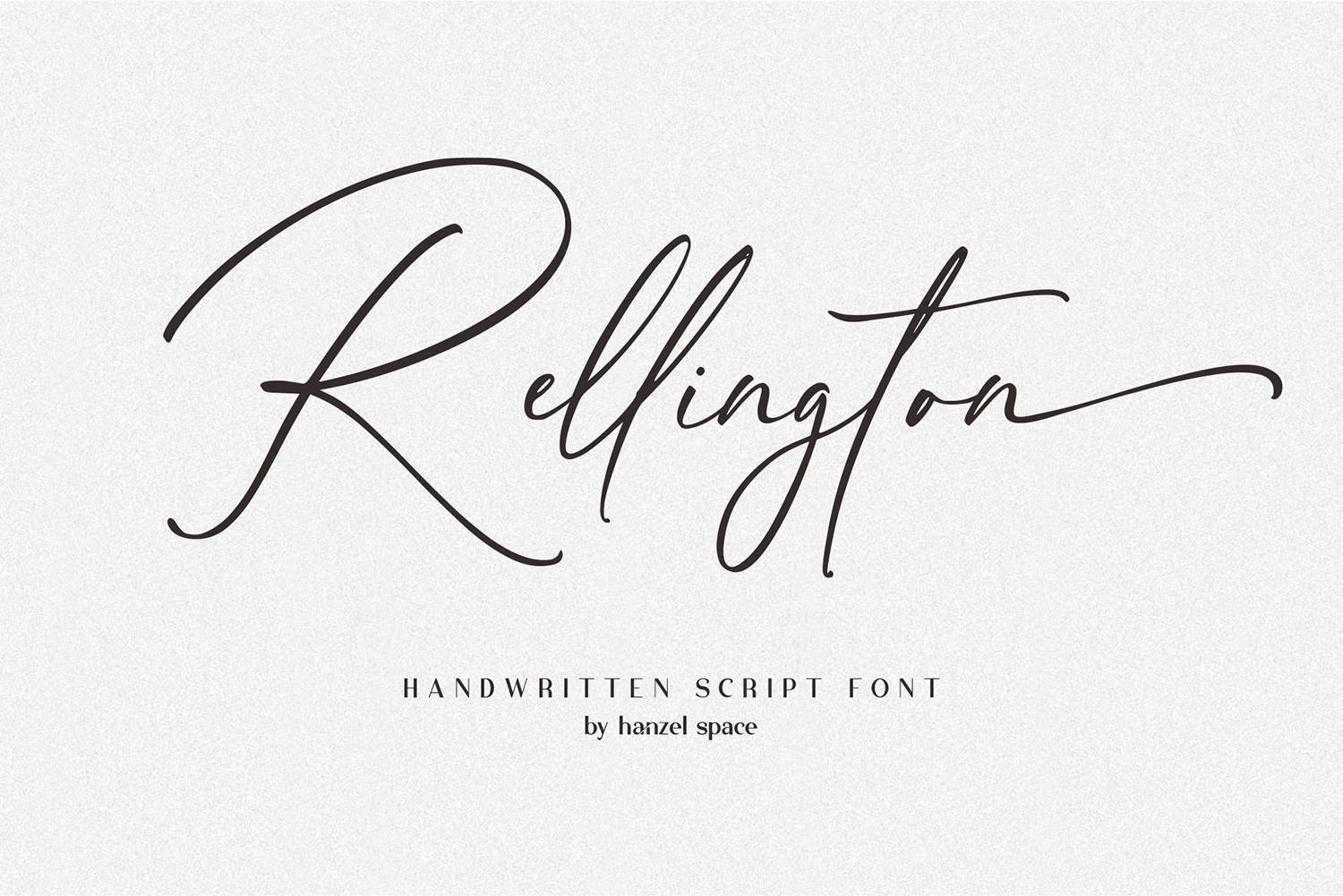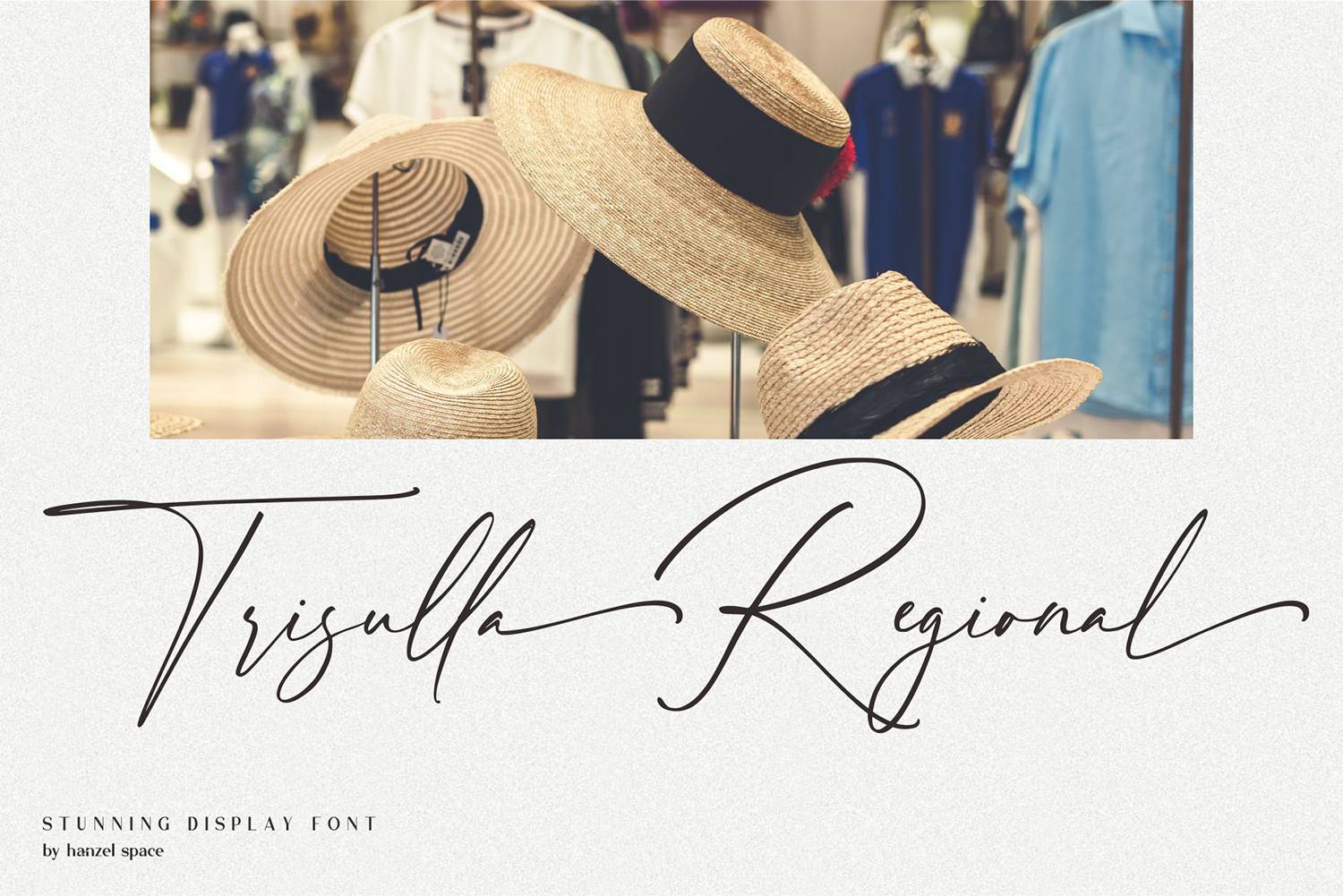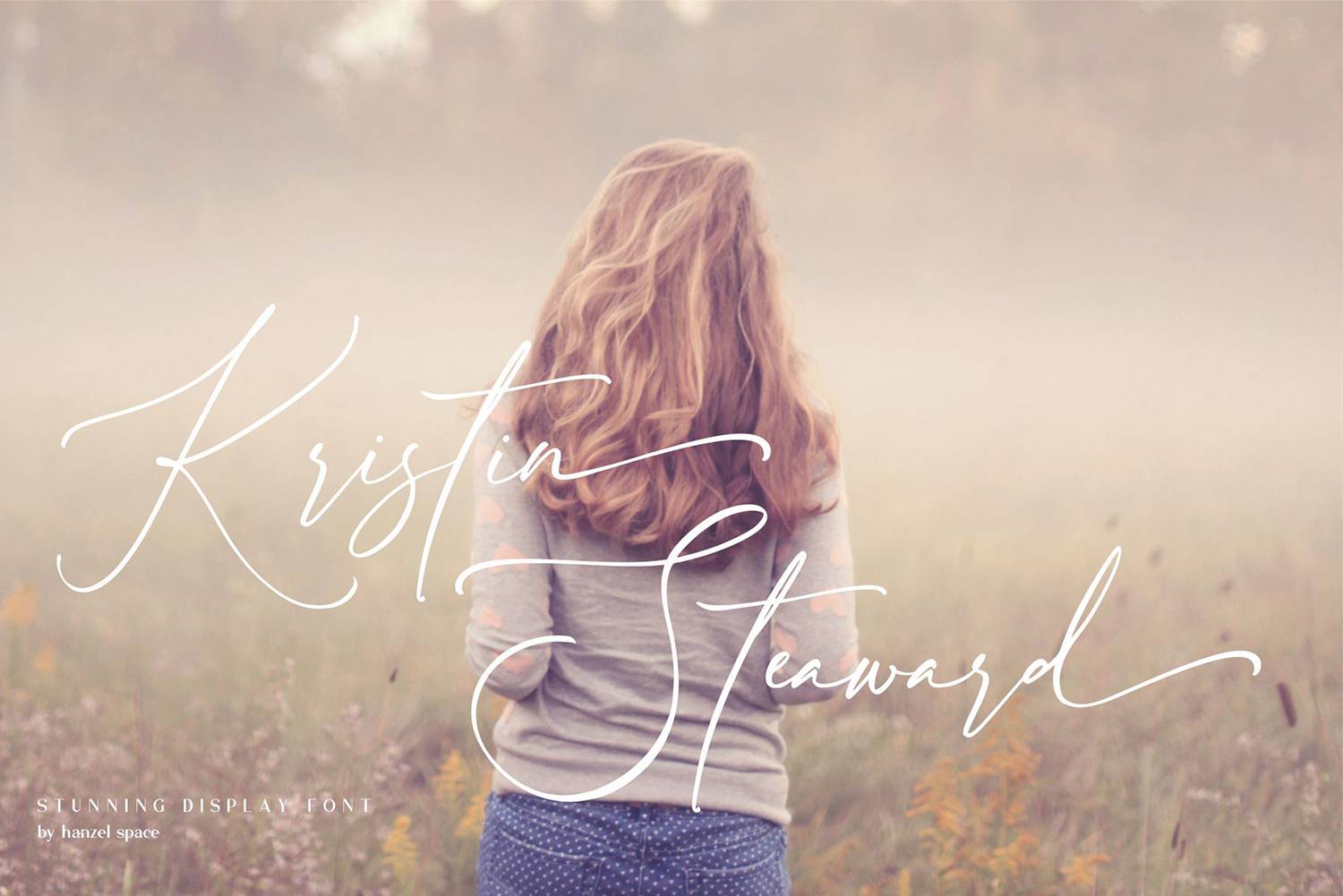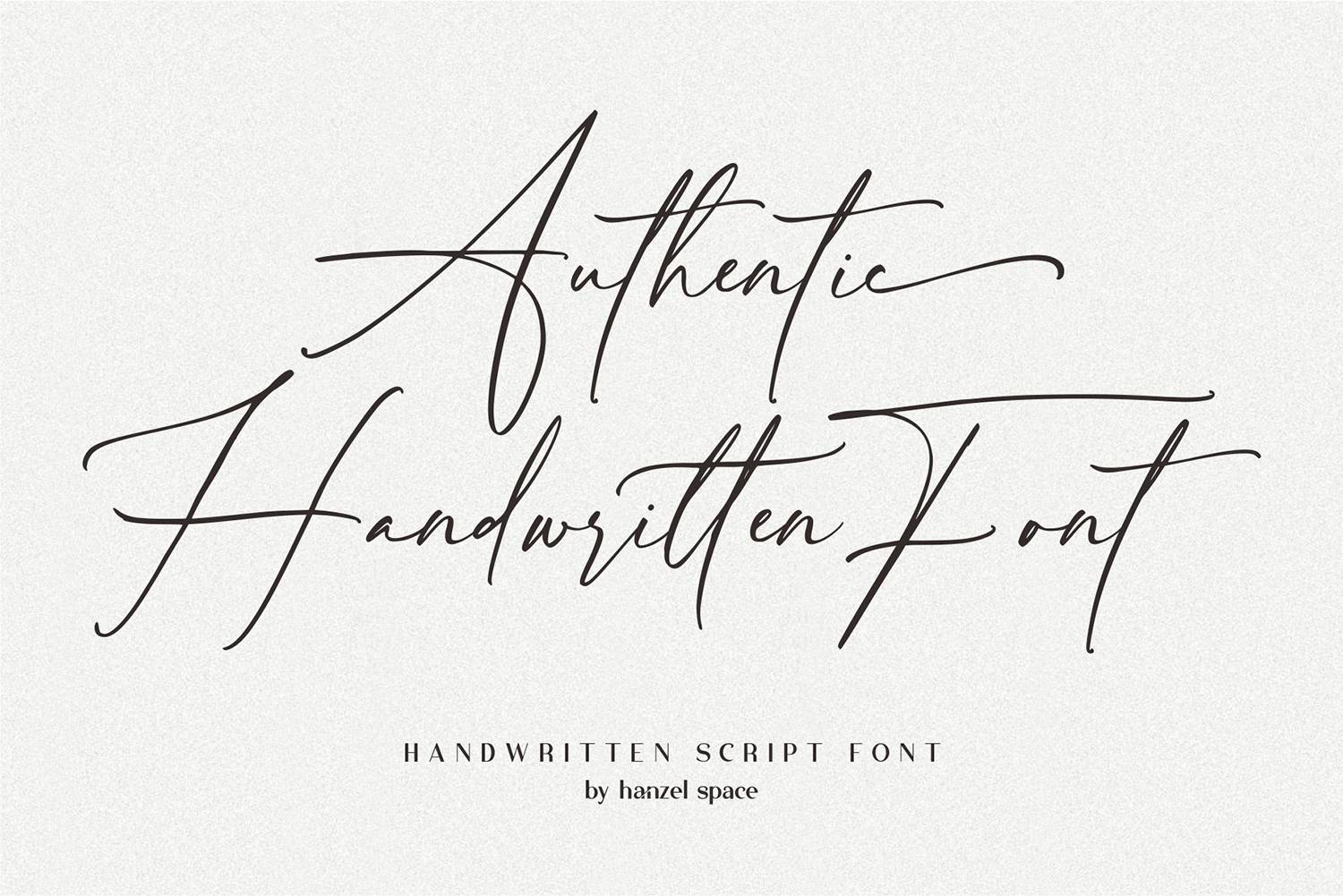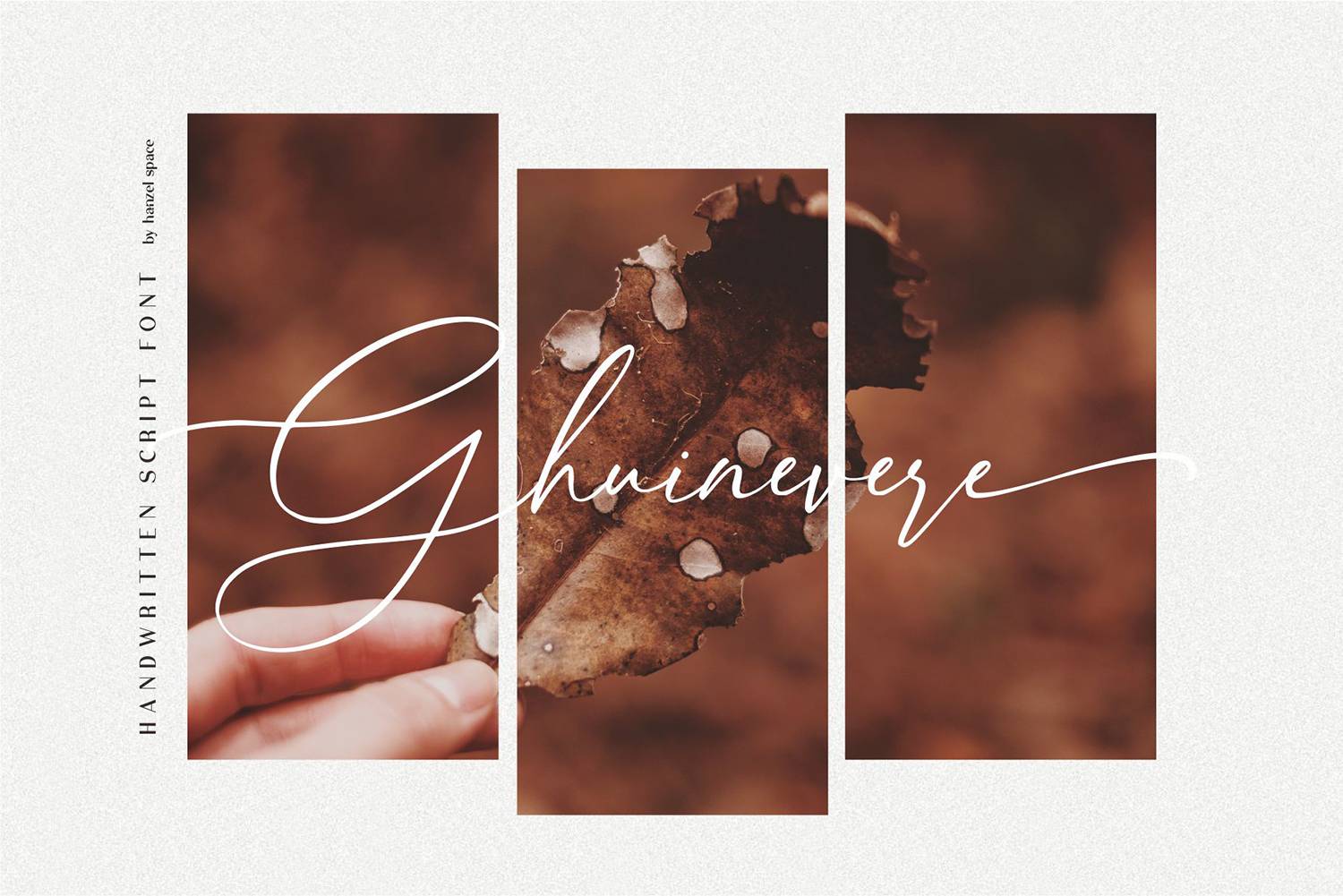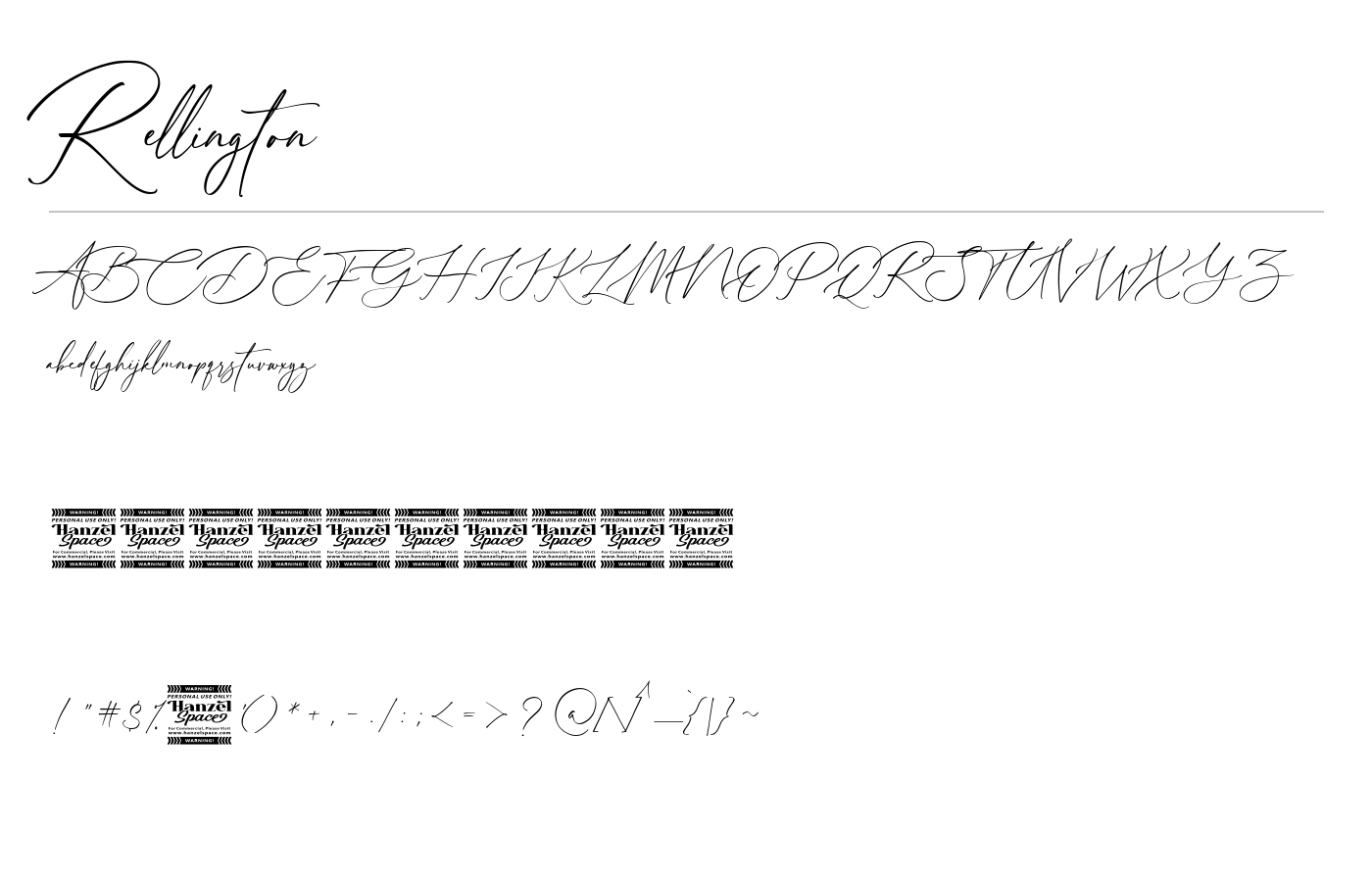
Rellington is an elegant script font characterized by its delicate, flowing strokes and a fine, airy feel. It combines graceful uppercase letters with intricate, looping swashes and a slender lowercase that adds a sophisticated, hand-written touch, making it ideal for wedding invitations, luxury branding, and refined editorial designs. This font’s stylish and romantic personality works beautifully where a sense of elegance and exclusivity is desired.
Rellington Font
About Rellington Font